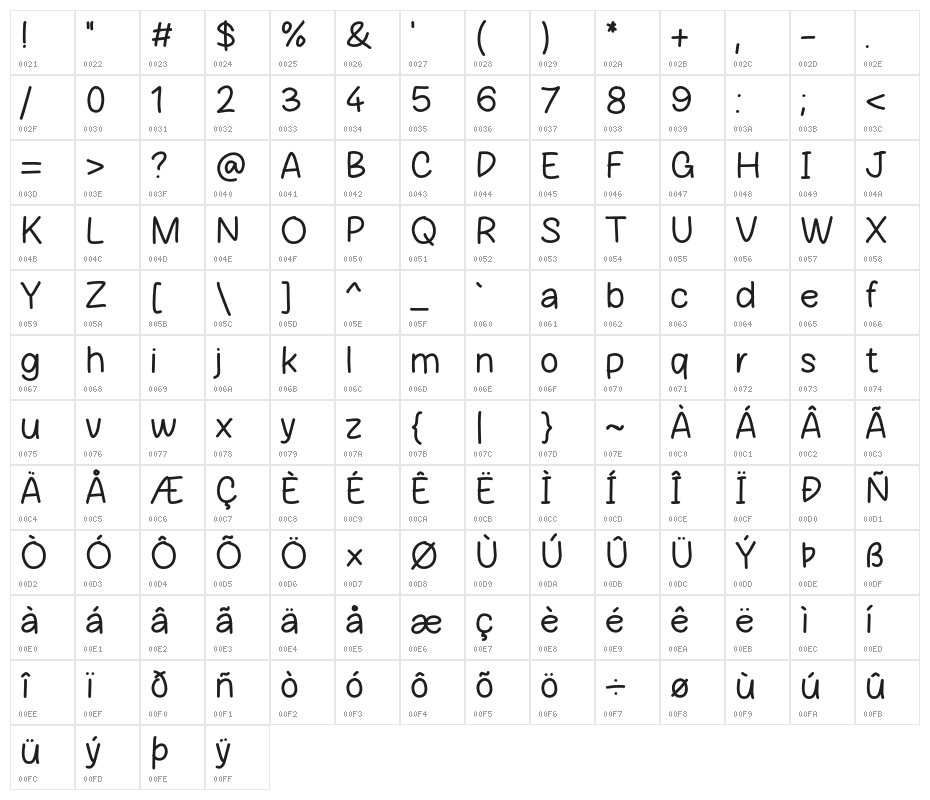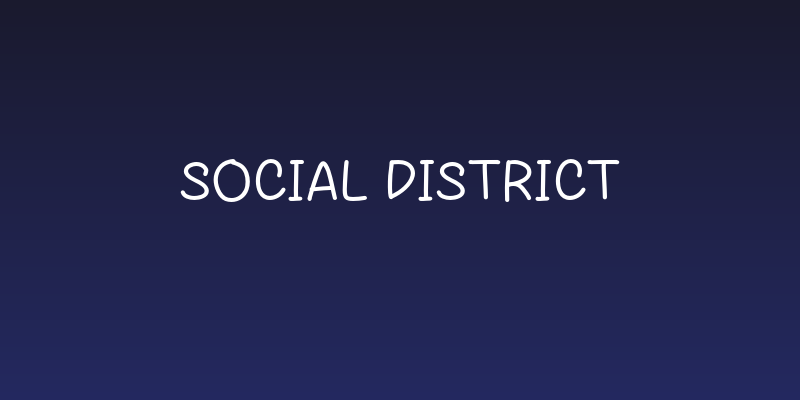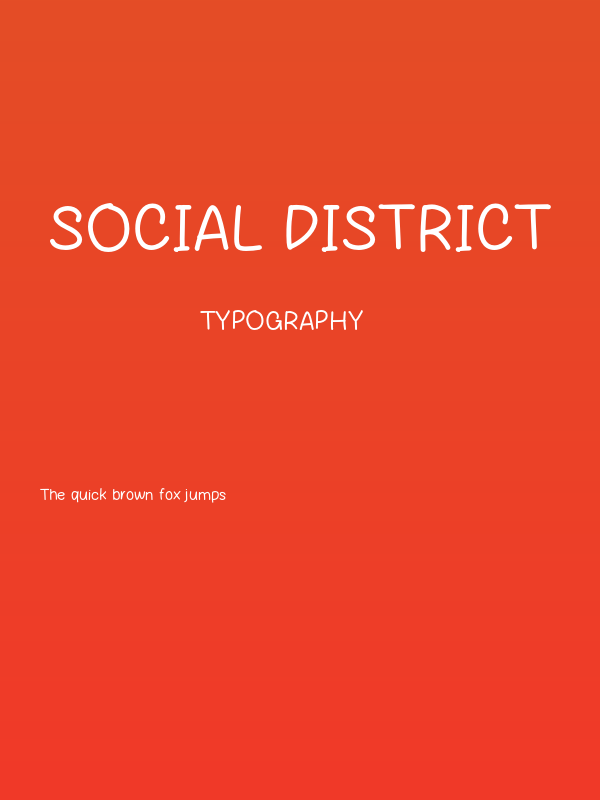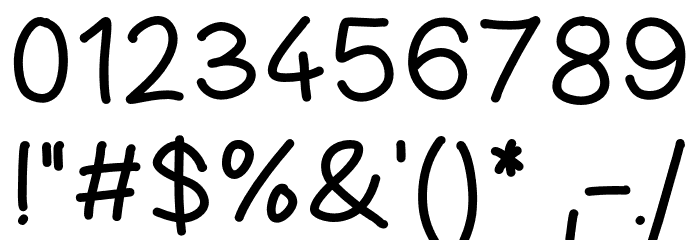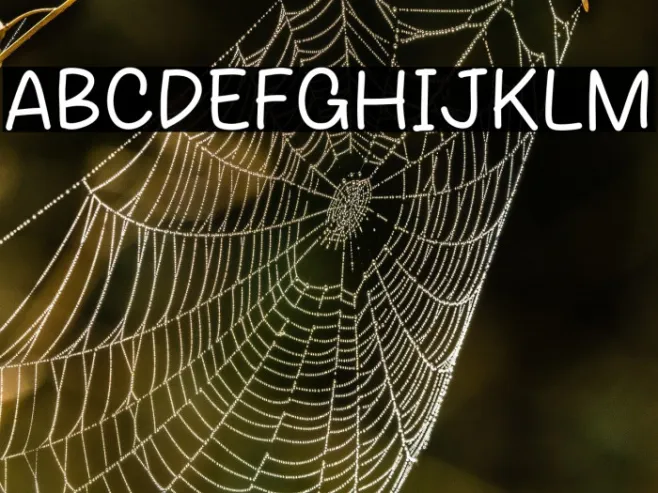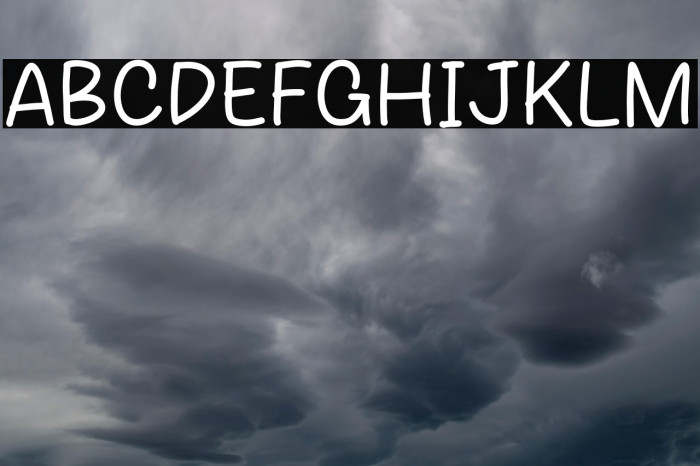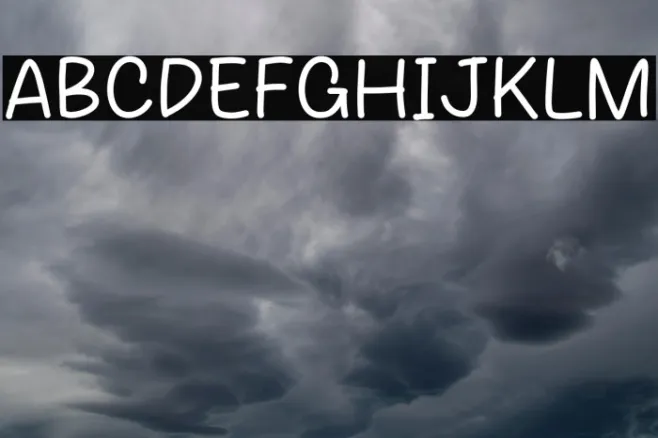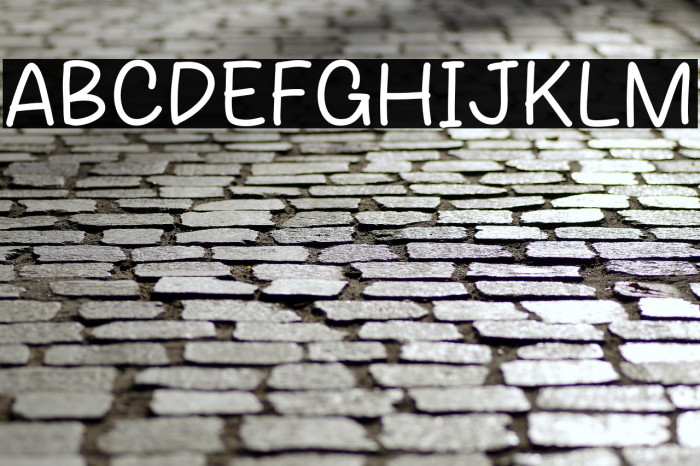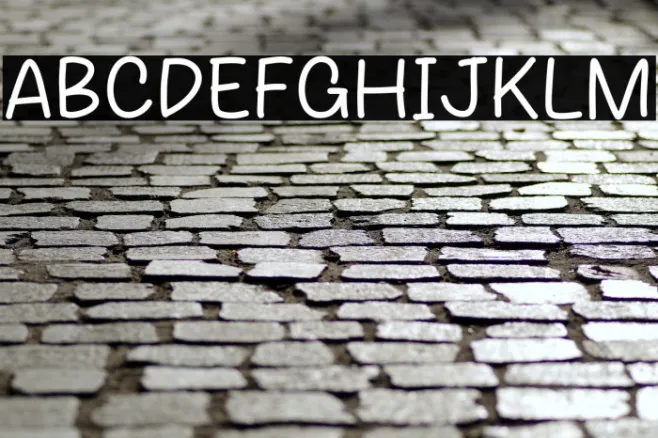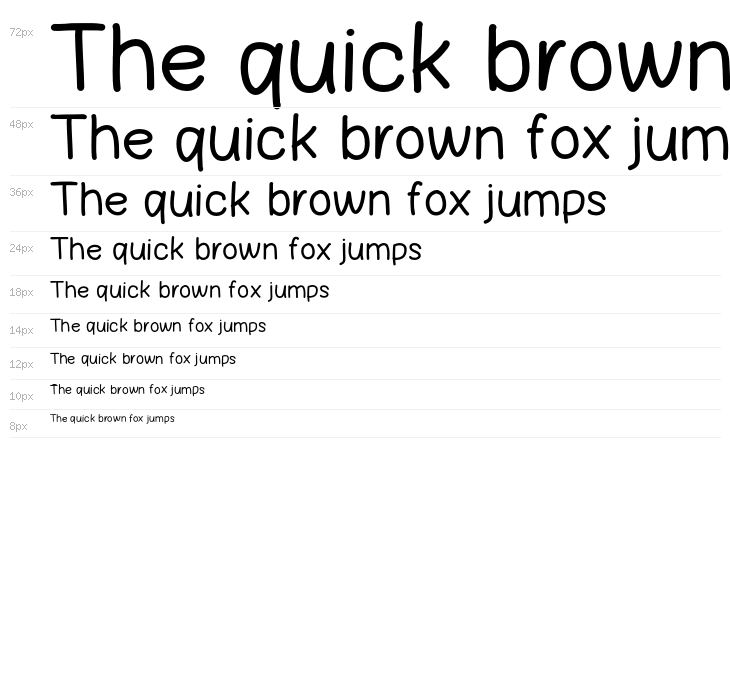
Social District Font
Social District Description
This font features a playful and casual handwritten style, characterized by its rounded and slightly irregular letterforms. The strokes are consistent in width, giving it a uniform appearance while maintaining a friendly and approachable feel. The letters are slightly tilted, adding to the informal and relaxed vibe. The font includes a full set of uppercase and lowercase letters, numbers, and a variety of special characters, making it versatile for different uses. Its legibility and charm make it suitable for projects that require a personal touch.
| Use Case | Headlines, Informal text, Branding |
| Proposed Projects | Ideal for children's books, greeting cards, social media graphics, and informal branding. |